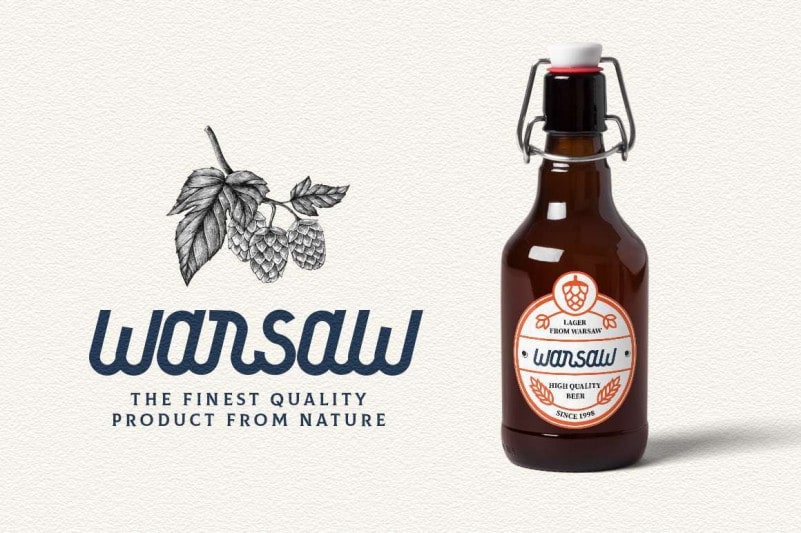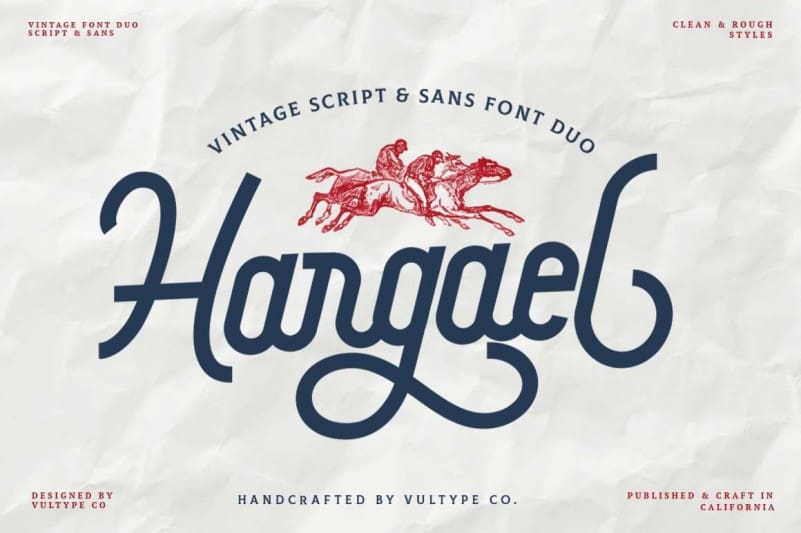
Hargael Display Font
Hargael Display Font is a typeface display that is made by hand, inspired by classic posters. It’s designed and shared by vultype. Hargael font duo included script & sans was very inspired from modern vintage and retro style.
With font duo that combines two trends (Modern Sans serif and Vintage Script) You’ll be seeing this combination a lot more in the design world.
All characters have an imperfect shape that gives a natural look in design. It easily cooperating together and perfect for creating the traditional style logos, labels, package design, lettering for t-shirts and much others.